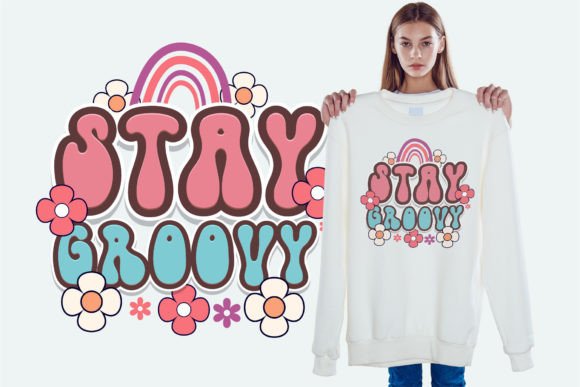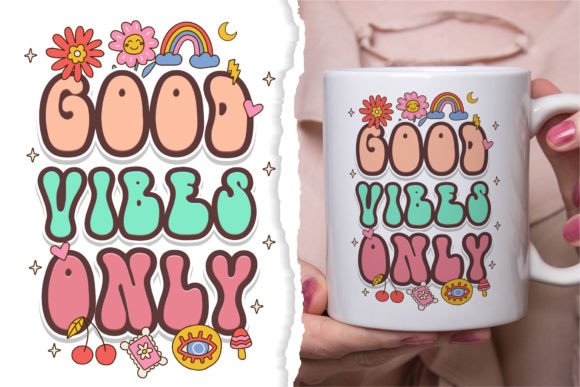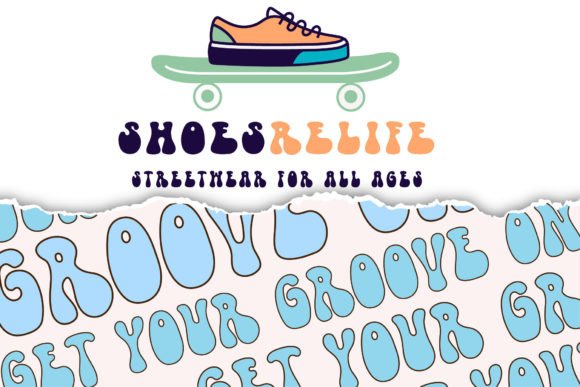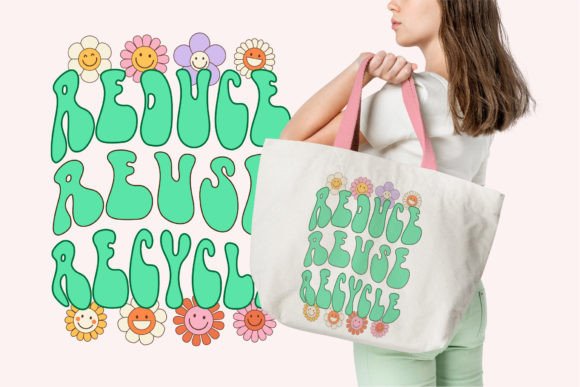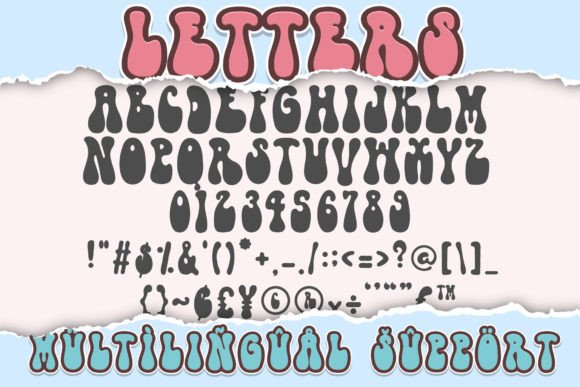
The Groovy Flower Font: A Retro Revival for Your Designs
I’ll never forget the design project that led me to discover the Groovy Flower Font. I was working on a vintage-themed poster for a client’s flower shop, and I was struggling to find the perfect font that captured the essence of the 1960s flower power era. The client wanted something playful, whimsical, and eye-catching, but I was coming up empty-handed. That’s when I stumbled upon the Groovy Flower Font, and it was love at first sight! 💐
As a designer, I’m always on the lookout for fonts that can add a unique touch to my projects. Here’s what I love about the Groovy Flower Font:
- ✨ Retro charm: The font’s vintage vibe is perfect for designs that require a nostalgic feel.
- ✅ Whimsical design: The cute and playful elements make it ideal for posters, invitations, and branding projects.
- 💡 Customization options: The font comes with a range of OpenType features, glyphs, and stylistic alternates that allow for endless creativity.
While the Groovy Flower Font is a gem, it’s not without its quirks:
- 🤔 Limited use cases: The font’s retro vibe might not be suitable for more formal or corporate designs.
- ⚠️ Kerning issues: As with any font, some kerning issues may arise, especially when using all caps or large font sizes.
The Designer Inspiration Behind Groovy Flower
The Groovy Flower Font was inspired by the iconic designs of the 1960s flower power era. Imagine a time when flowers were a symbol of peace, love, and freedom. The font’s creator was inspired by the era’s playful, whimsical aesthetic and sought to capture its essence in a modern typeface. The result is a font that’s both nostalgic and fresh, perfect for designers looking to add a retro touch to their projects.
| What is the Groovy Flower Font? | The Groovy Flower Font is a charming and playful typeface that captures the essence of the retro groovy era. |
| Does the Groovy Flower Font come with OpenType features? | Yes, the Groovy Flower Font comes with a range of OpenType features, glyphs, and stylistic alternates. |